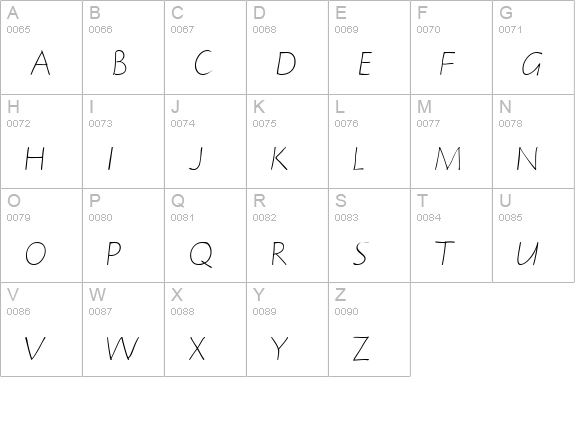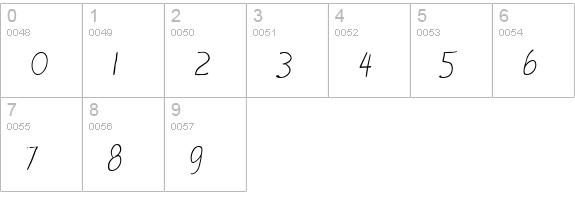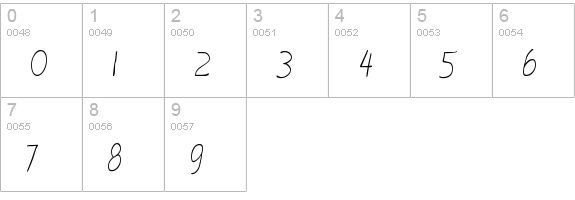
Notehand is a stylish and modern font that exudes elegance and sophistication. Its sleek lines and versatile design make it perfect for a variety of projects, from branding to editorial design. This font strikes the perfect balance between professionalism and creativity, making it a popular choice among designers and creatives alike. What sets Notehand apart is not only its aesthetic appeal but also its accessibility. This font is available for free download at FontsMarket.com, allowing users to easily incorporate it into their projects without any additional cost. Whether you're working on a personal project or a client's brief, Notehand is a versatile and reliable choice that is sure to elevate your design to the next level.